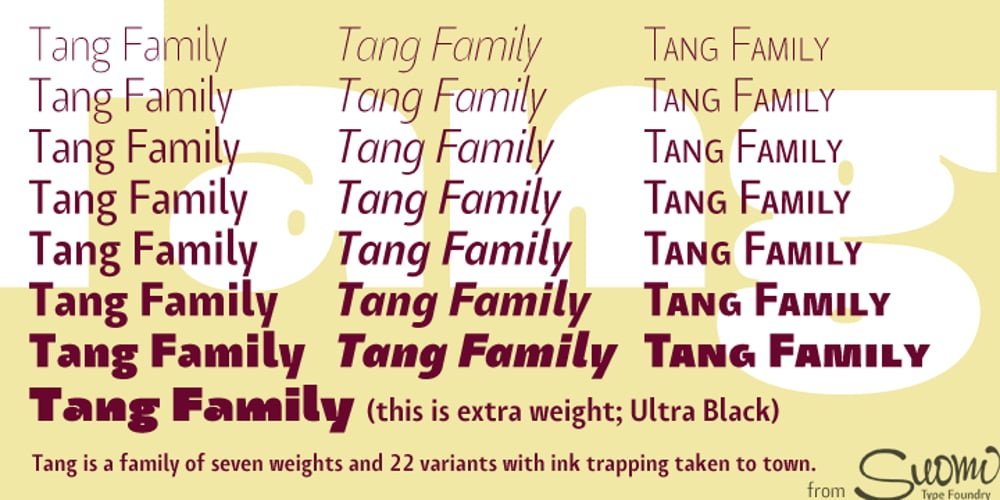
Tang Font Family was designed by Tomi Haaparanta and published by Suomi. Tang contains 21 styles and family package options. The Tang family came to be, when I started studying fonts made for use in very small point sizes, like Bell Gothic. I studied the use of ink traps and went to town with them. Instead of just using them for their purpose: trapping ink to prevent the type getting blotted; I used them as a design feature. With those features Tang works very well in both headline and text use. I use it as a house type, and I’ve already seen it in a beer and cider labels.